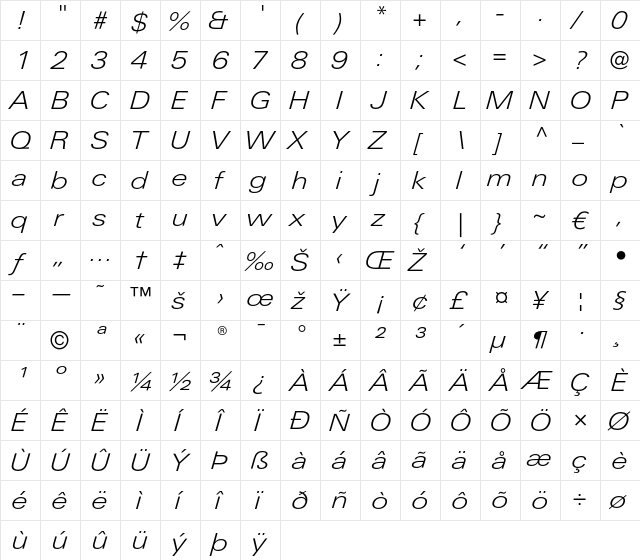
LTUnivers 341 ExtdLightIt Font Preview
LTUnivers 341 ExtdLightIt
Design Context for LTUnivers Typeface
LTUnivers is a composed and adaptable typeface that performs quietly and consistently across a wide range of design contexts. Its slender proportions lend an understated elegance to any composition.